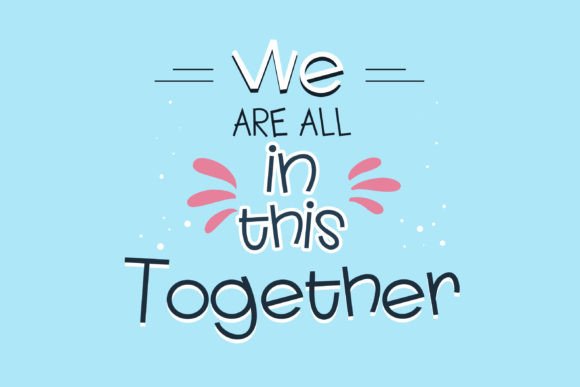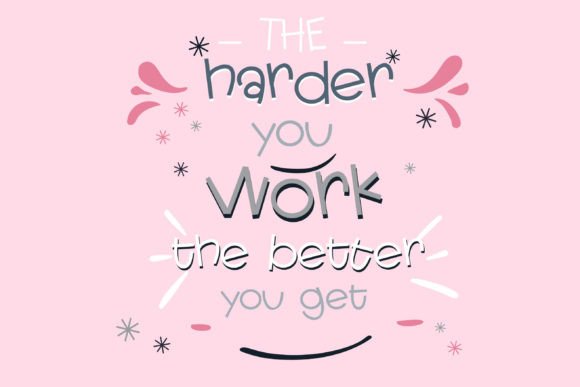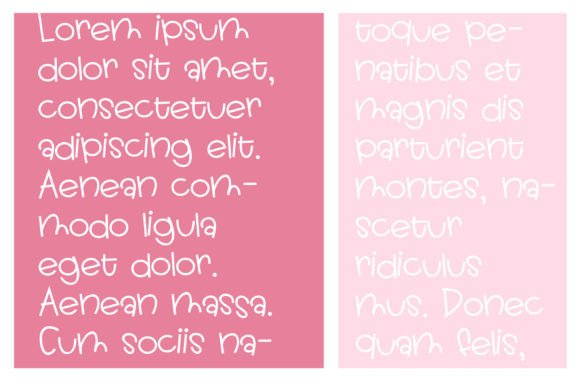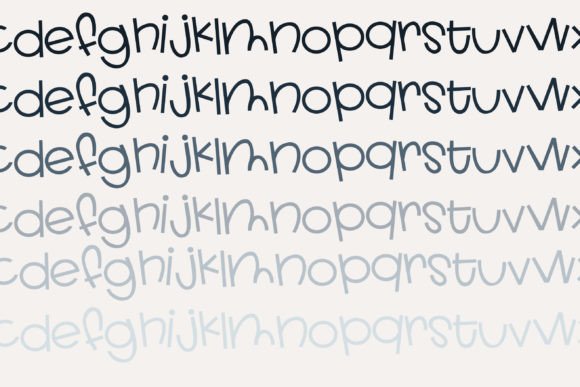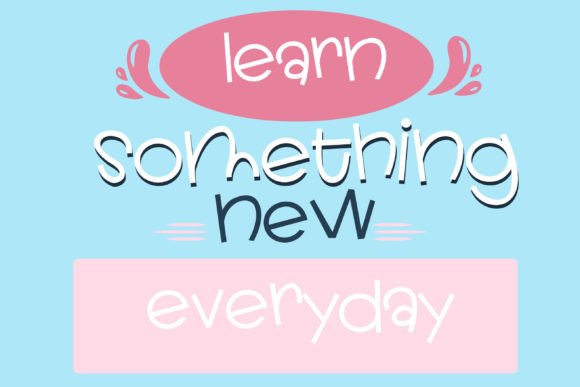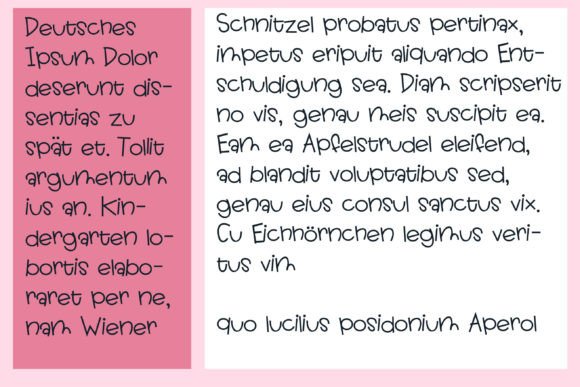
Introducing Cutesie Font: The Sweetest Addition to Your Design Arsenal
Are you tired of using the same old fonts in your designs? Look no further! We’re thrilled to introduce “Cutesie,” the newest script font that’s sure to capture hearts with its irresistible charm. This adorable font is designed to add a touch of sweetness and tenderness to your projects, making it perfect for designs that require a dash of whimsy and playfulness.
What Makes Cutesie Font So Special?
Cutesie font is a masterfully crafted script font that boasts flowing lines and whimsical curves, giving each letter a lovely and adorable look. The font’s design is carefully thought out to evoke a sense of warmth, friendliness, and approachability, making it an excellent choice for a wide range of design projects. Whether you’re creating wedding invitations, baby announcements, or social media graphics, Cutesie font is sure to add a touch of magic to your designs.
Key Features of Cutesie Font
- Cute and Charming Design: Cutesie font features a unique and captivating design that’s sure to stand out in any project.
- Flowing Lines and Whimsical Curves: The font’s flowing lines and whimsical curves give it a playful and carefree feel that’s perfect for designs that require a touch of sweetness.
- Perfect for a Wide Range of Projects: From wedding invitations to baby announcements, social media graphics, and more, Cutesie font is versatile enough to be used in a variety of design projects.
- Easily Readable: Despite its whimsical design, Cutesie font is surprisingly easy to read, making it perfect for both digital and print designs.
Use Cases for Cutesie Font
Cutesie font is an incredibly versatile font that can be used in a wide range of design projects. Here are some use cases to get you started:
- Wedding Invitations: Add a touch of romance and whimsy to your wedding invitations with Cutesie font.
- Baby Announcements: Celebrate the arrival of a new baby with a sweet and adorable design featuring Cutesie font.
- Social Media Graphics: Add a dash of personality to your social media graphics with Cutesie font.
- Stationery and Gift Tags: Use Cutesie font to create beautiful and unique stationery and gift tags.
Tips for Using Cutesie Font
To get the most out of Cutesie font, here are some tips to keep in mind:
- Pair with Neutral Backgrounds: Pair Cutesie font with neutral backgrounds to make it stand out.
- Experiment with Colors: Don’t be afraid to experiment with different colors to find the perfect match for your design.
- Use for Headings and Titles: Use Cutesie font for headings and titles to add a touch of personality to your designs.
In conclusion, Cutesie font is a beautiful and charming script font that’s sure to add a touch of sweetness and tenderness to your designs. With its flowing lines, whimsical curves, and adorable look, it’s perfect for a wide range of design projects. Whether you’re a designer, crafter, or DIY enthusiast, Cutesie font is a must-have in your design arsenal. So why wait? Download Cutesie font today and start creating your own adorable designs!